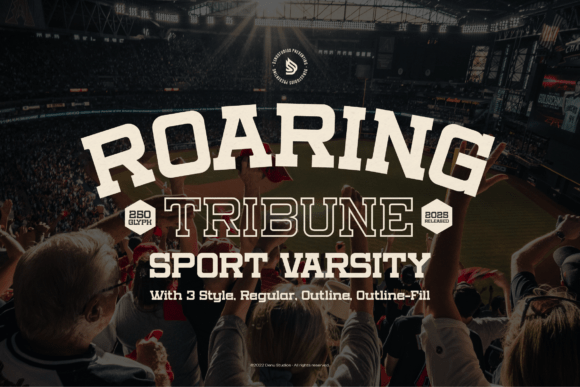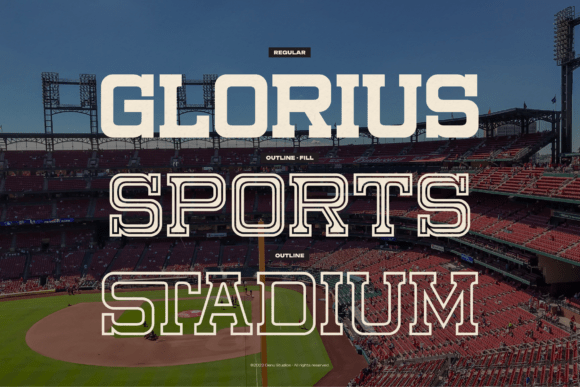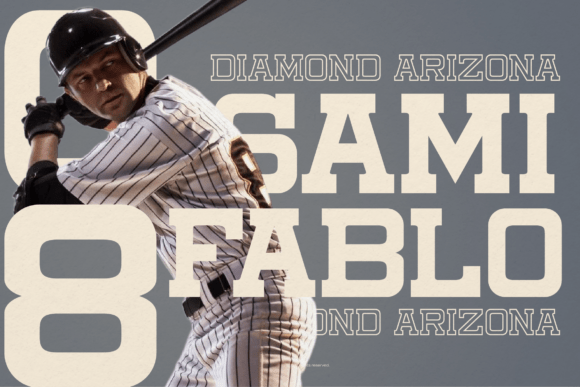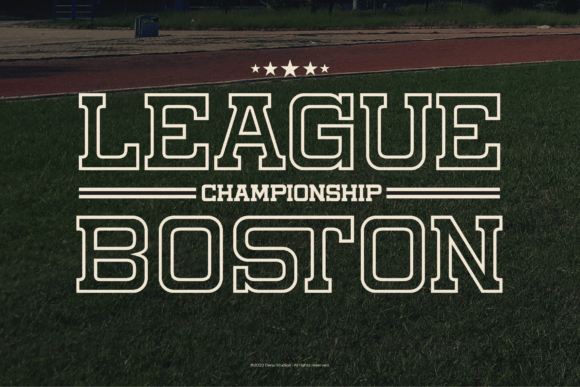
Roaring Tribune Font
About the Roaring Tribune Font
Let us introduce you to Roaring Tribune Font, where timeless design meets modern craftsmanship. Roaring Tribune is a bold and powerful varsity-style font that echoes the energy of stadium cheers and championship glory. With three distinct styles—Regular, Outline, and Outline-Fill—this typeface is built for sports branding, athletic merch, team logos, school spirit designs, and event posters. Featuring over 250 glyphs, Roaring Tribune brings a bold, collegiate edge to your typography.
Roaring Tribune’s bold, varsity style excels in headlines, short impactful slogans, and logos where its energetic personality shines. It’s ideal for sports-related branding, event posters, and packaging for products targeting a young, active audience. However, its strong weight and large x-height make it less suitable for body text or UI elements requiring high readability in smaller sizes.
Pairing Roaring Tribune effectively requires a contrasting typeface to balance its boldness. A clean sans-serif like Montserrat or a more refined serif such as Playfair Display would provide a sophisticated counterpoint. For a more playful approach, a rounded sans-serif like Bebas Neue could work well, maintaining a sense of energy without overwhelming the design.
The font projects a confident, powerful, and slightly nostalgic feel, aligning well with brands that prioritize dynamism and a sense of heritage or tradition. Avoid using it for projects requiring subtlety or minimalism; its strength lies in making a bold statement.
Roaring Tribune Font Usage Examples
Roaring Tribune Font Example